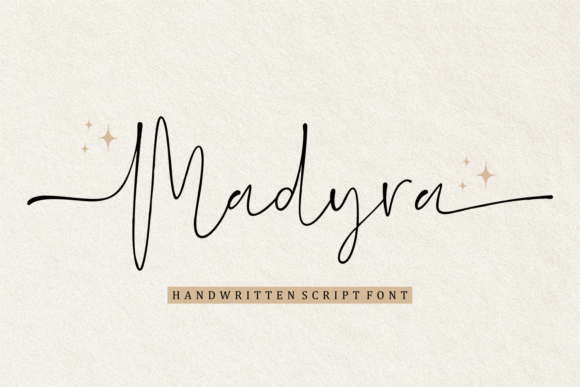
Madyra Font
**Introducing Madyra Font: The Font That Will Captivate Your Cricut Vinyl Creations**
Immerse yourself in the world of exquisite typography with Madyra Font, a captivating handwritten script typeface designed to elevate your Cricut vinyl projects to unparalleled heights. Its every stroke is a testament to elegance, flowing effortlessly like a graceful river, inviting you to explore the boundless possibilities of your creative imagination.
**A Font Crafted with Passion, Perfect for Every Occasion**
Conceived by the visionary minds of Forberas Club, Madyra Font is a masterpiece tailored for the discerning crafter. Its timeless style transcends any project, whether you seek to personalize mugs, T-shirts, or home décor with heartfelt messages. Let Madyra Font guide your hand as you transform ordinary objects into extraordinary works of art.
**Your Gateway to Creative Freedom**
With Madyra Font at your disposal, the shackles of creative limitations fall away. Its distinct character whispers inspiration, empowering you to express your unique personality through every design. From whimsical phrases to intricate monograms, Madyra Font is your key to unlocking a realm of endless possibilities.
**Precision Meets Elegance: A Font Designed for Perfection**
Every curve, every stroke in Madyra Font has been meticulously crafted to ensure flawless execution on your Cricut vinyl masterpieces. Its unwavering precision guarantees crisp, clean cuts, allowing you to achieve professional-grade results with every project. Say goodbye to frustrations and embrace the joy of effortless perfection.
**A Font That Inspires, A Font That Captivates**
Madyra Font is more than just a collection of letters; it's a catalyst for inspiration. Its enchanting flow invites you to pour your heart into every creation, transforming your designs into expressions of love, joy, and boundless creativity. With Madyra Font, your Cricut vinyl projects will leap beyond the ordinary, captivating the hearts and imaginations of all who behold them.
**Discover the Limitless Potential of Madyra Font**
Join the ranks of inspired crafters who have embraced the transformative power of Madyra Font. Let its graceful strokes guide your hand as you embark on a journey of creative fulfillment. The possibilities are as limitless as your imagination, and Madyra Font is the key to unlocking them all.